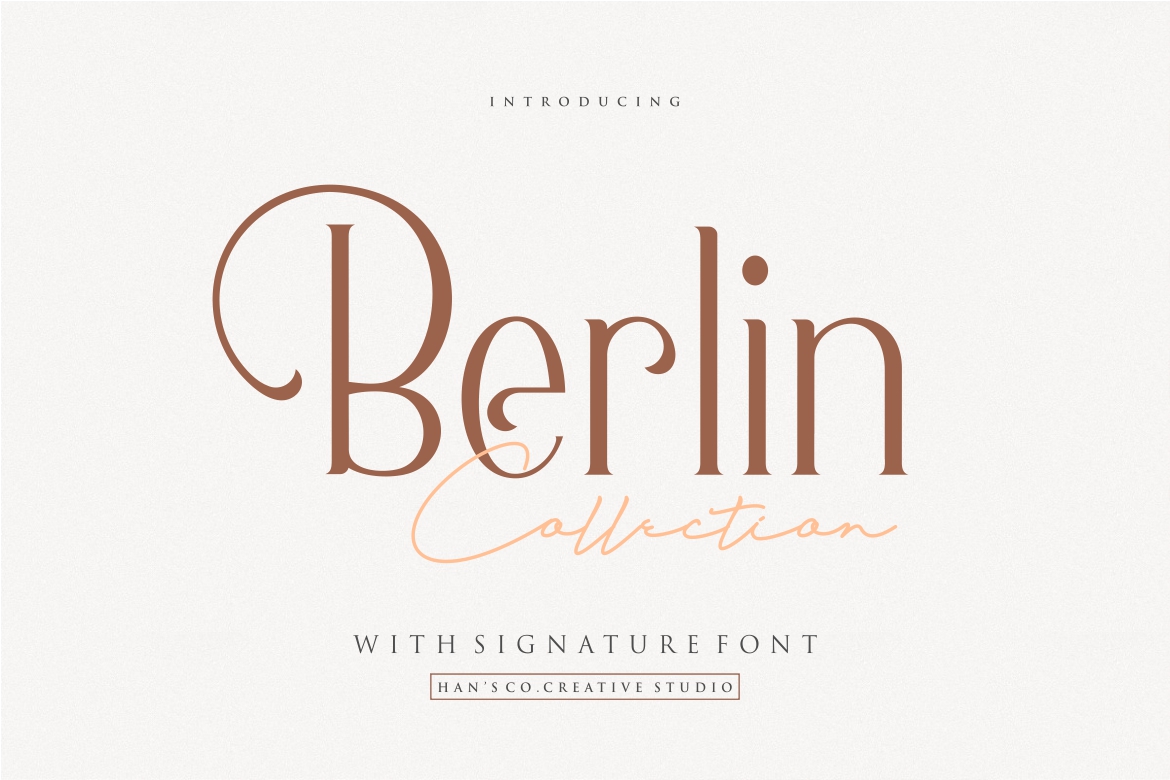
Berlin Collection Font
Berlin Collection Font is perfect for German cultural projects, European tourism marketing, contemporary urban branding, architectural firms, modern art galleries, German restaurant identities, Berlin-inspired fashion, industrial design companies, cultural institutions, and authentic German heritage communications.
What makes Berlin Collection Font exciting is its urban sophistication that captures the dynamic energy of modern Berlin and contemporary German design through architecturally crafted letterforms. This metropolitan typeface combines industrial strength with cultural refinement, creating a personality that communicates innovation, creativity, and genuine German excellence. The font collection's Berlin-inspired character and urban appeal make it perfect for brands seeking to evoke the vibrant atmosphere of Europe's most dynamic capital and the sophisticated charm of contemporary German culture.
The Berlin Collection Font family includes Regular, Bold, Light, Medium, Urban, Industrial, Condensed, and Modern variants. Each weight maintains the collection's metropolitan character while providing comprehensive typographic flexibility for German brand identity systems and European design applications across diverse cultural platforms.
Experience metropolitan sophistication with this exceptional urban typeface collection that defines German innovation through architecturally crafted letterforms. Berlin Collection Font Free Download provides European brands with access to premium German typography that communicates innovation, creativity, and authentic Berlin sophistication across all metropolitan projects and German communications.
Whether you're developing German cultural identities, creating European marketing materials, designing urban architecture branding, or building German heritage campaigns, Berlin Collection Font delivers unmatched metropolitan appeal and German sophistication. Its dynamic presence makes it perfect for German companies, European cultural institutions, urban design firms, and contemporary brands seeking authentic Berlin representation.
The font collection's architectural proportions and urban details create an inspiring reading experience that captures the creative energy of Berlin's art districts and modern German innovation. Each letterform has been carefully crafted to reflect contemporary German design principles while maintaining excellent readability across modern European applications.
This versatile typeface collection excels in urban environments, offering designers the sophistication needed for comprehensive German brand communication strategies. The extensive character set includes Germanic alternates, urban ligatures, and contemporary symbols for European market positioning and German brand storytelling.
Transform your metropolitan projects with Berlin Collection Font Free Download and experience how German typography can enhance cultural credibility and urban appeal. This remarkable typeface collection captures the essence of Berlin innovation while providing the versatility required for modern German brand communication.
Embrace the power of metropolitan design that celebrates German culture and authentic contemporary European sophistication.